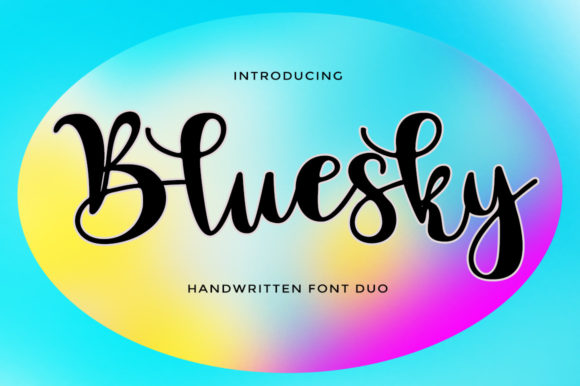
Introducing Bluesky Script Font, a breathtaking handwritten font that will captivate your audience and leave a lasting impression. Immerse yourself in the world of imagination and creativity as this font carries you away to a realm of visual delight.
With Bluesky Script, your words will dance across the screen, evoking emotions and igniting passions. Its elegant curves and playful strokes add a touch of whimsy and charm to any project, making it the perfect choice for those seeking a unique and enchanting font.
Unleash your inner artist and let your creativity soar with Bluesky Script. Whether you're a designer crafting stunning graphics, a writer penning heartfelt stories, or a blogger sharing your thoughts with the world, this font will elevate your work to new heights.
Step into a world of limitless possibilities with Bluesky Script. Its versatility knows no bounds, from creating eye-catching logos and branding materials to designing captivating social media posts and presentations. The possibilities are endless, just like the imagination it inspires.
Make a statement with Bluesky Script, a font that embodies grace, beauty, and individuality. Its flowing lines and delicate details will transport your readers to a world of pure enchantment, leaving them spellbound and eager for more.
Elevate your designs and captivate your audience with Bluesky Script, the font that ignites creativity and leaves a lasting impression. Embrace the magic of handwritten artistry and let your words dance with joy. Discover the power of Bluesky Script today!